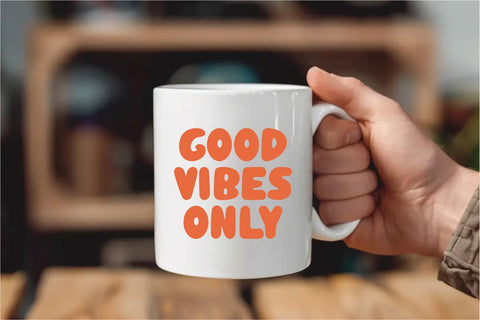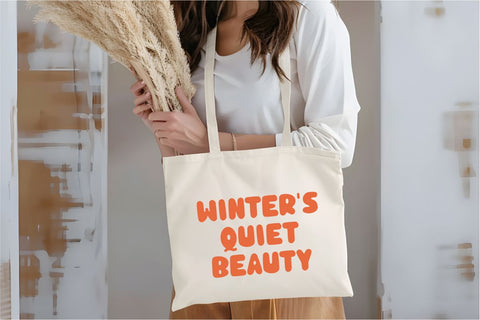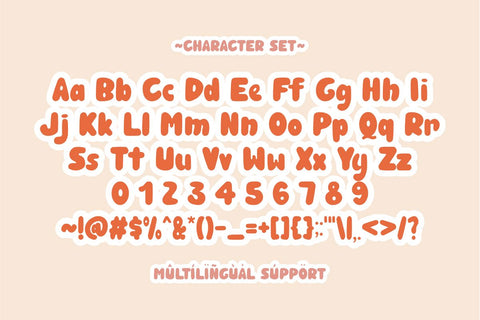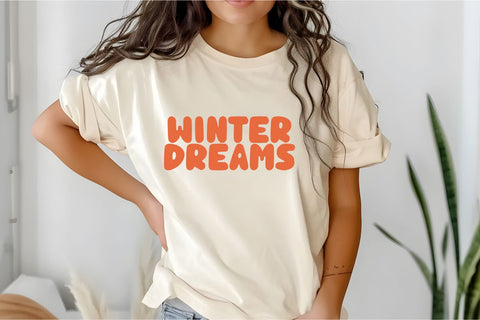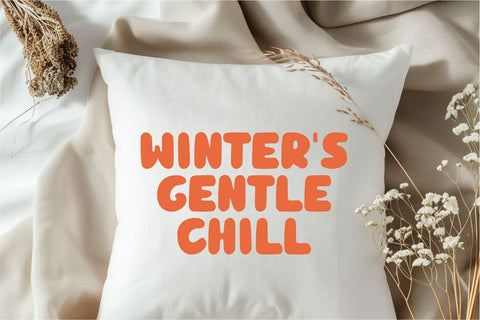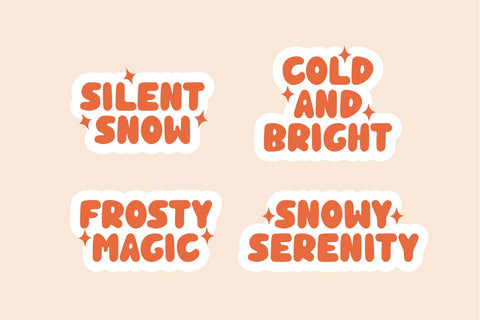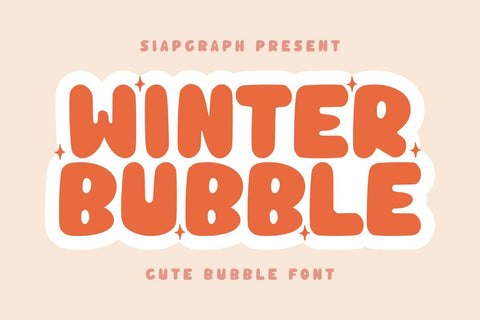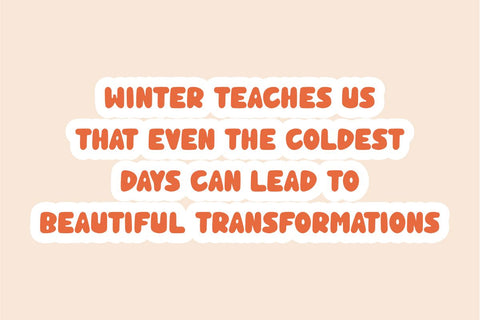
Winter Bubble - Retro Bubble Font
Winter Bubble is a cute and playful bubble font designed to bring joy and warmth to your creative projects. With its rounded, soft, and bubbly letterforms, this font is perfect for children’s designs, branding, posters, stickers, social media, greeting cards, and more. The friendly and fun aesthetic makes it ideal for crafting, DIY projects, and digital products. Winter Bubble adds a cheerful and cozy touch to any design, making it a great choice for designers looking for a fun and charming typography style.